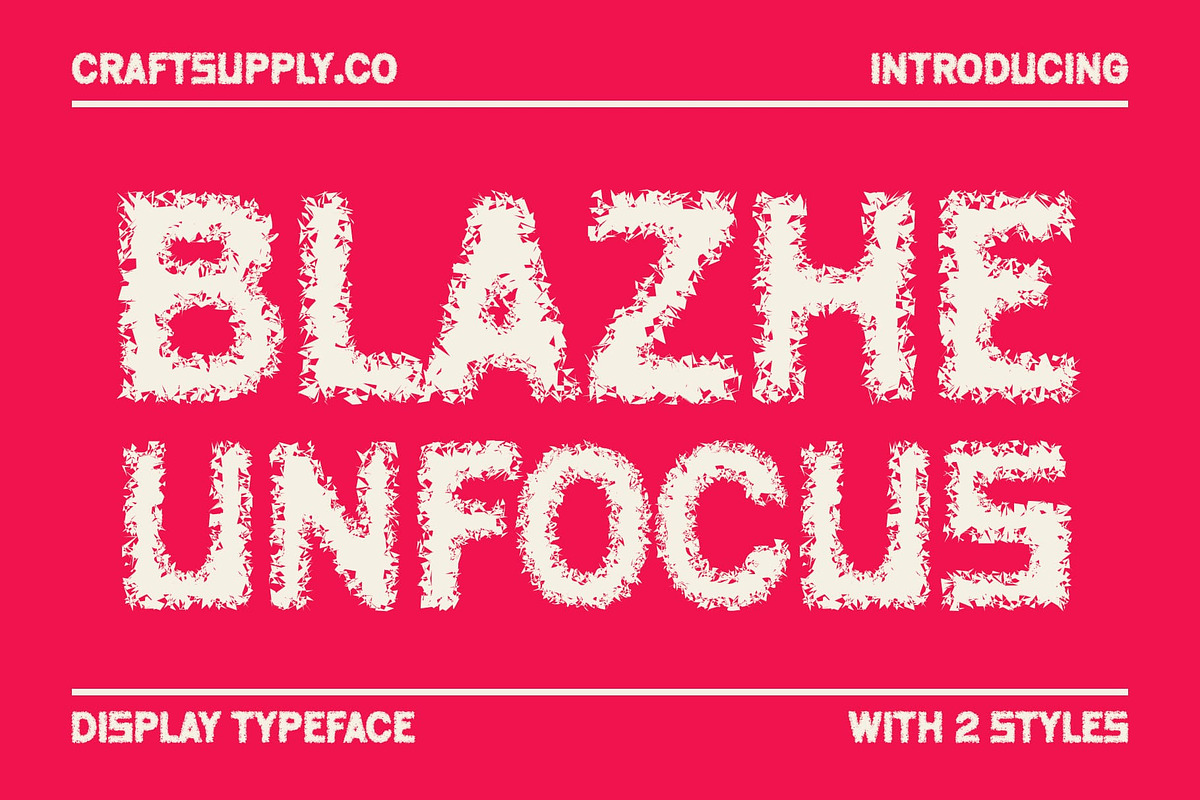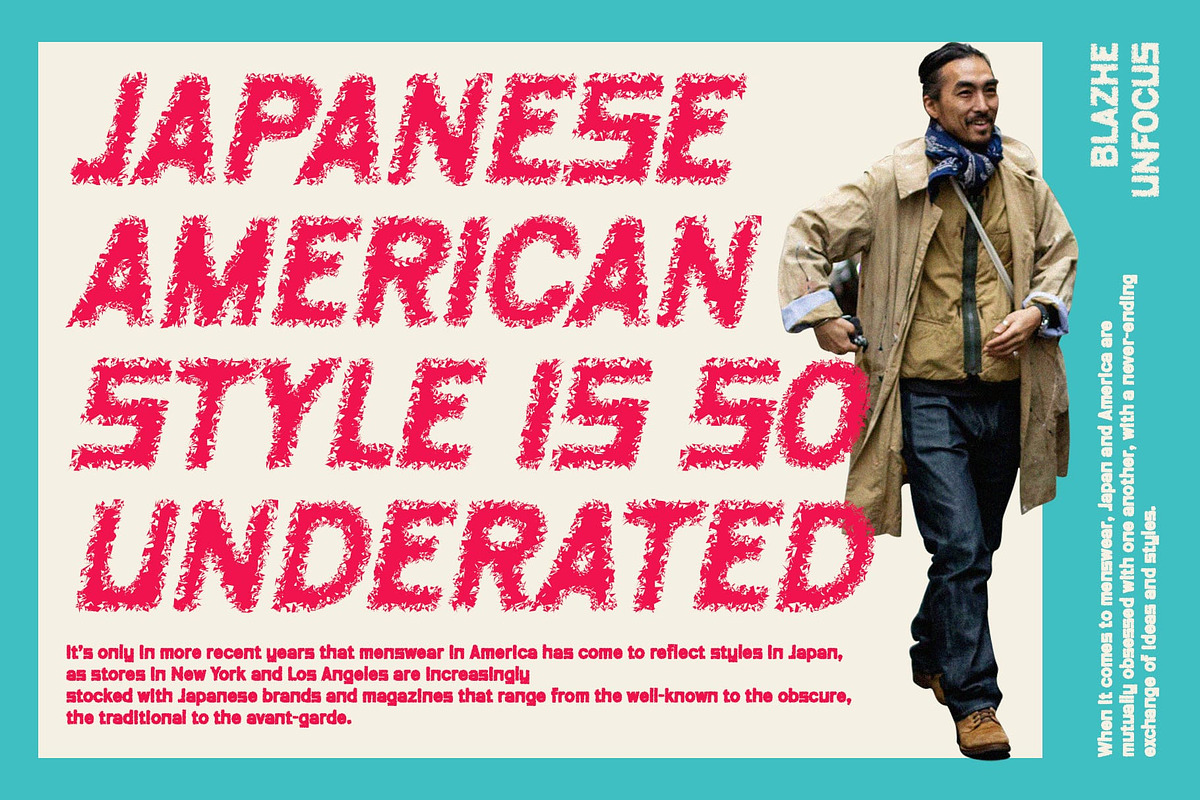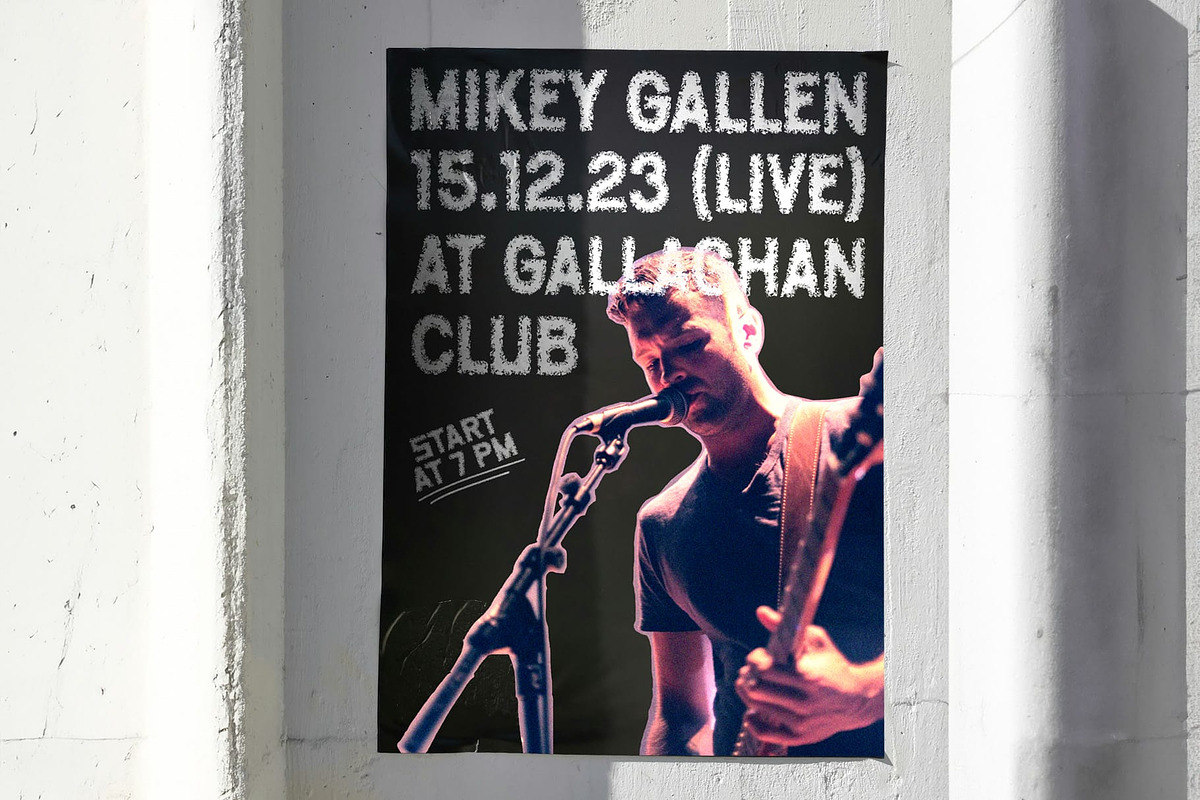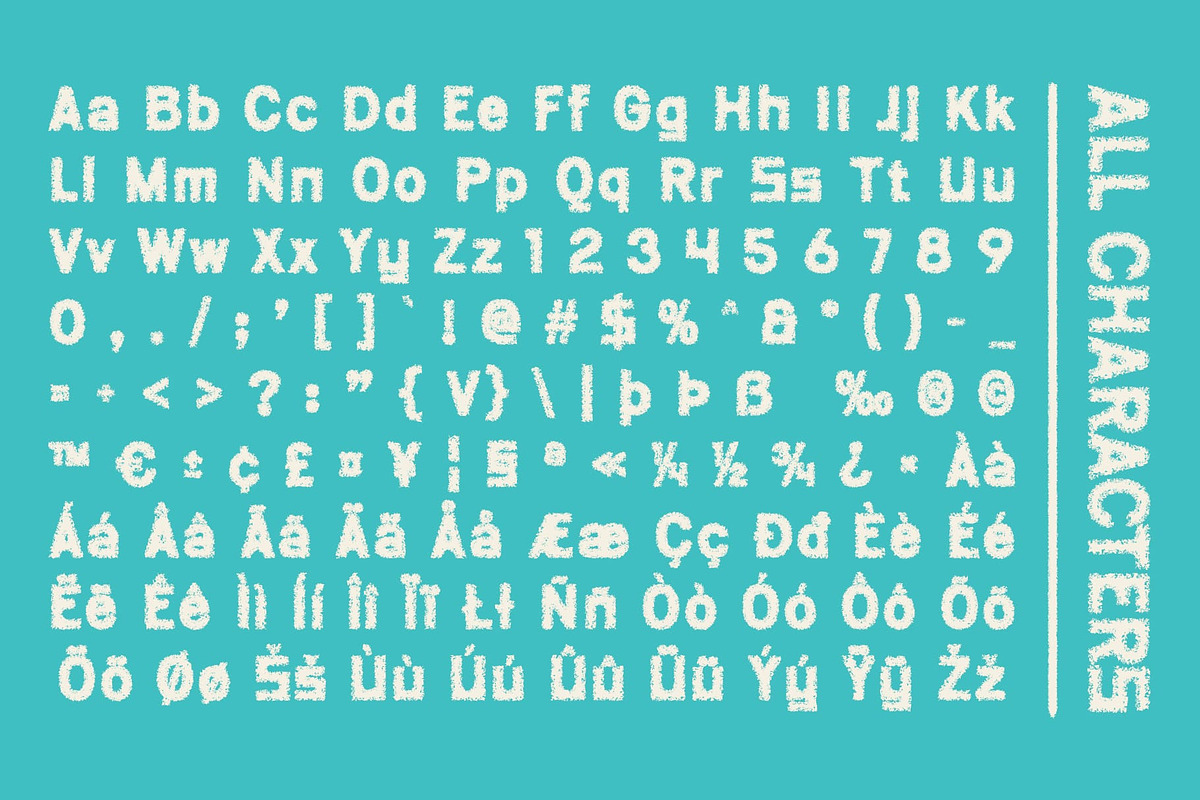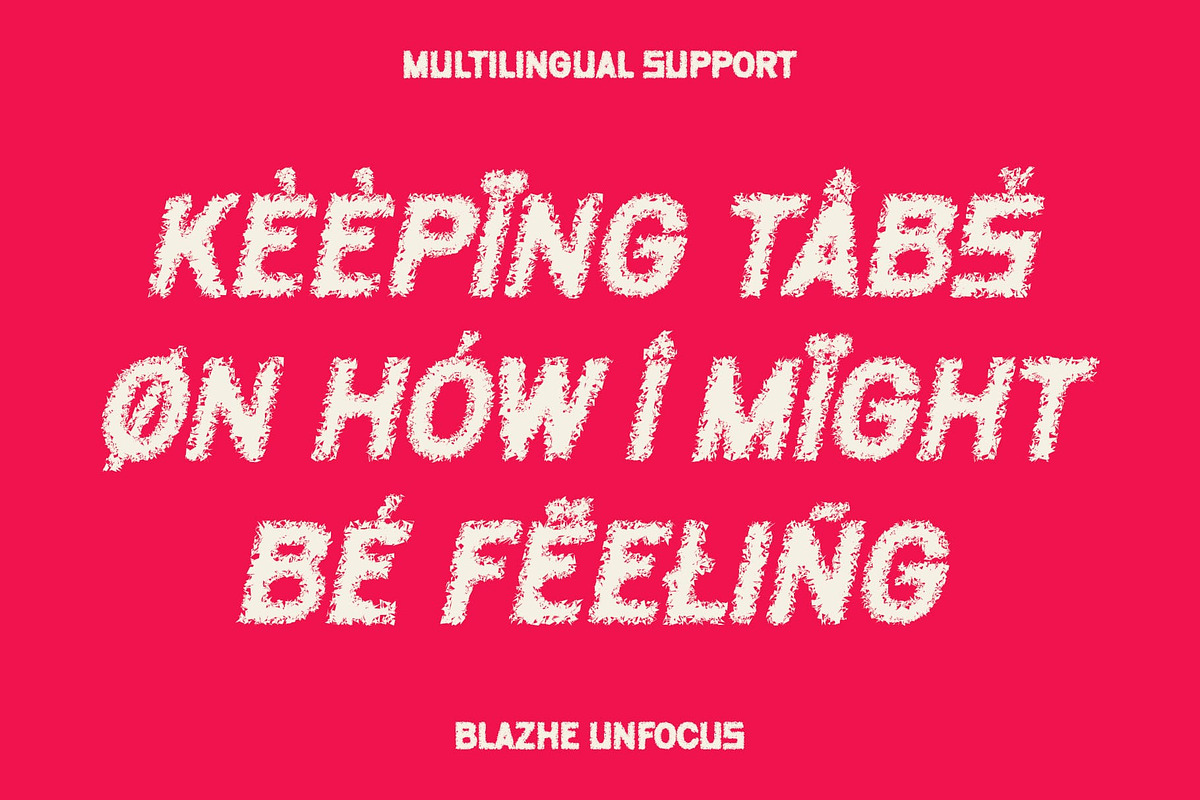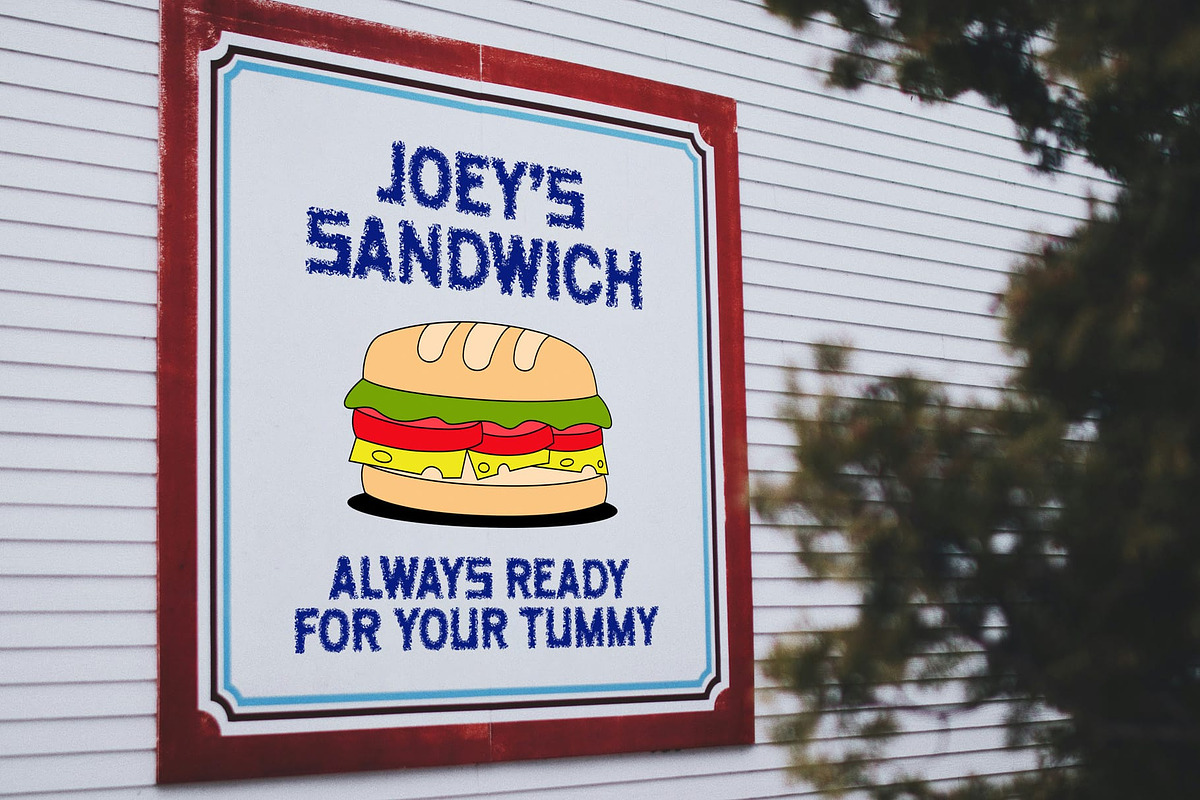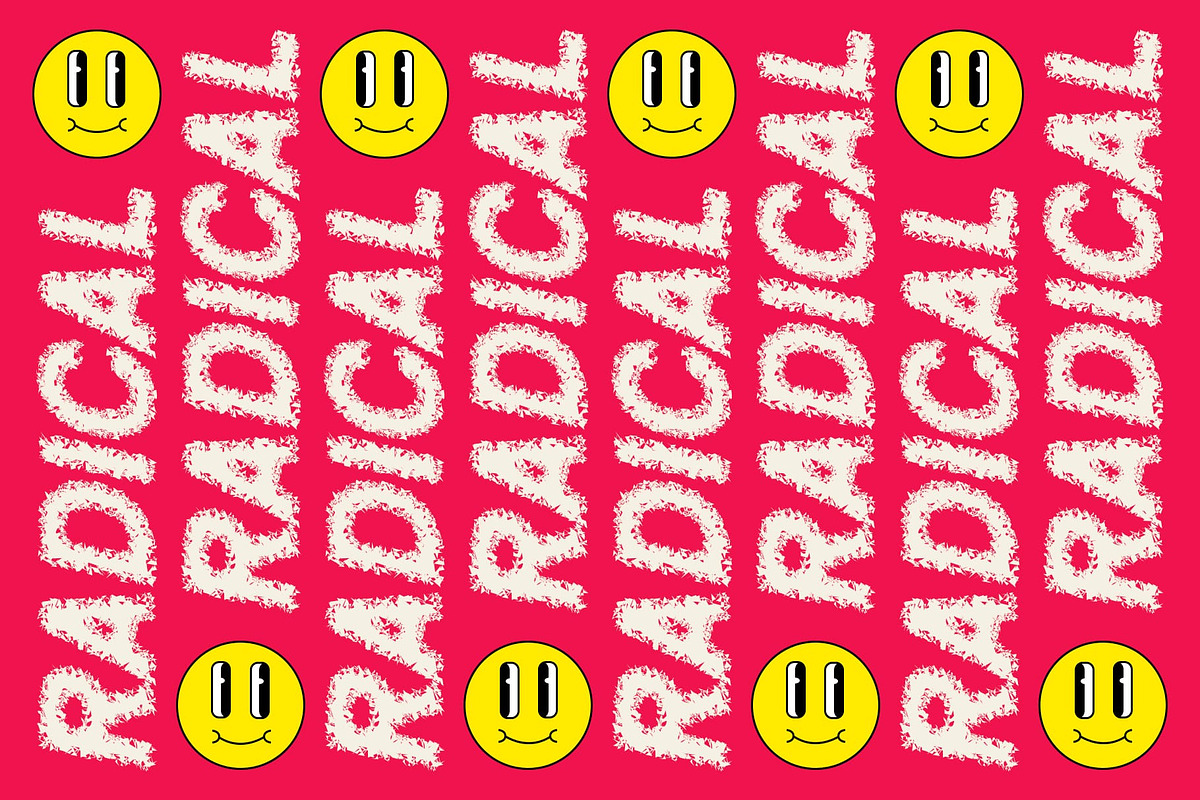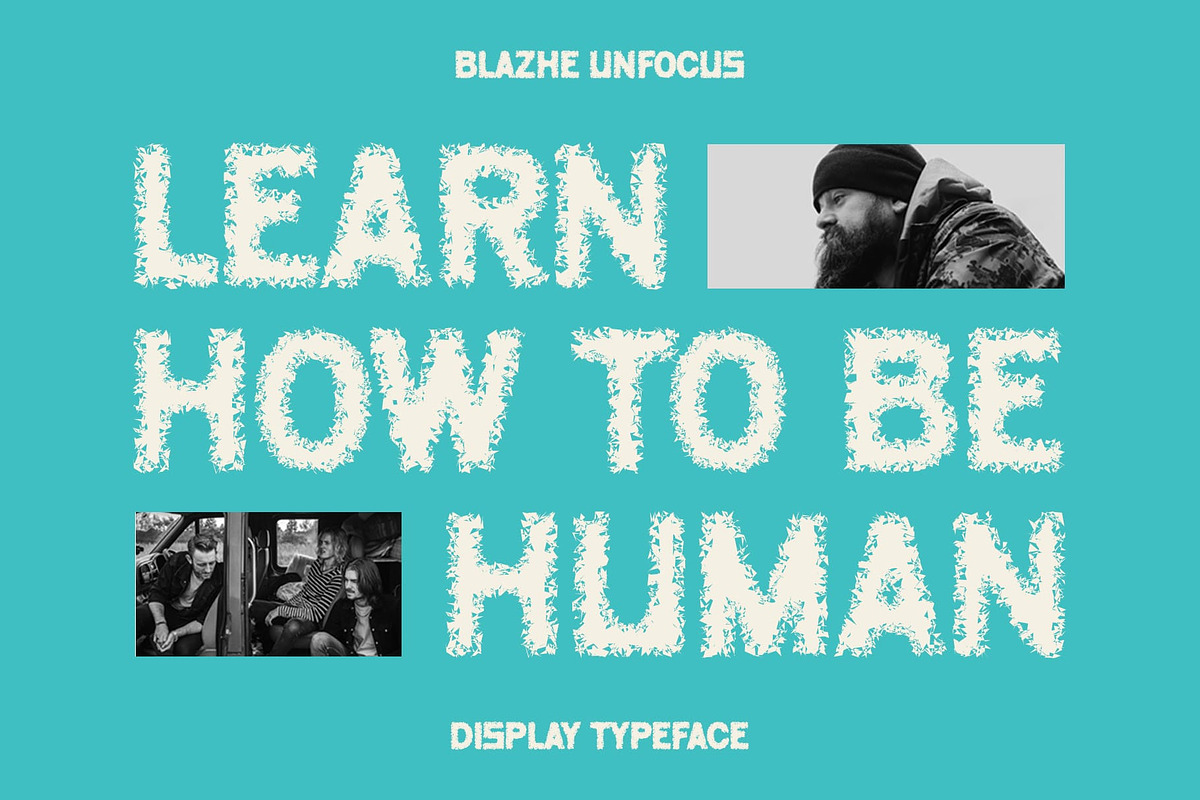
Blazhe Unfocus
Blazhe Unfocus: Embracing the Abstract
Sans-Serif Font with Unfocused Style
Blazhe Unfocus is a sans-serif font with an unfocused style, typically suitable for designs aiming to convey a unique, artistic, and experimental impression. It’s often used in abstract graphic designs, music-related designs, and creative designs that seek to stand out with a different and unique impression.
Perfect for Artistic Expressions
With its unfocused style, Blazhe Unfocus Font is ideal for a variety of artistic projects that require a bold and expressive look. Whether used in posters, album covers, or digital artwork, this font adds a touch of creativity and originality to your designs.
Enhanced Artistry
Blazhe Unfocus Font prioritizes artistry, ensuring that your designs are both expressive and captivating. Its unfocused style adds a dynamic and artistic element that resonates with viewers, making it perfect for projects that demand attention and creativity.
Ideal for Standing Out
Whether you’re creating an abstract art piece, designing a flyer for a music event, or developing a branding concept for a creative business, this font is the perfect choice for projects that require a unique and experimental look. Its unfocused style ensures that your designs will always make a bold and memorable statement.
Make a statement with Blazhe Unfocus Font and unleash your creativity in new and exciting ways.